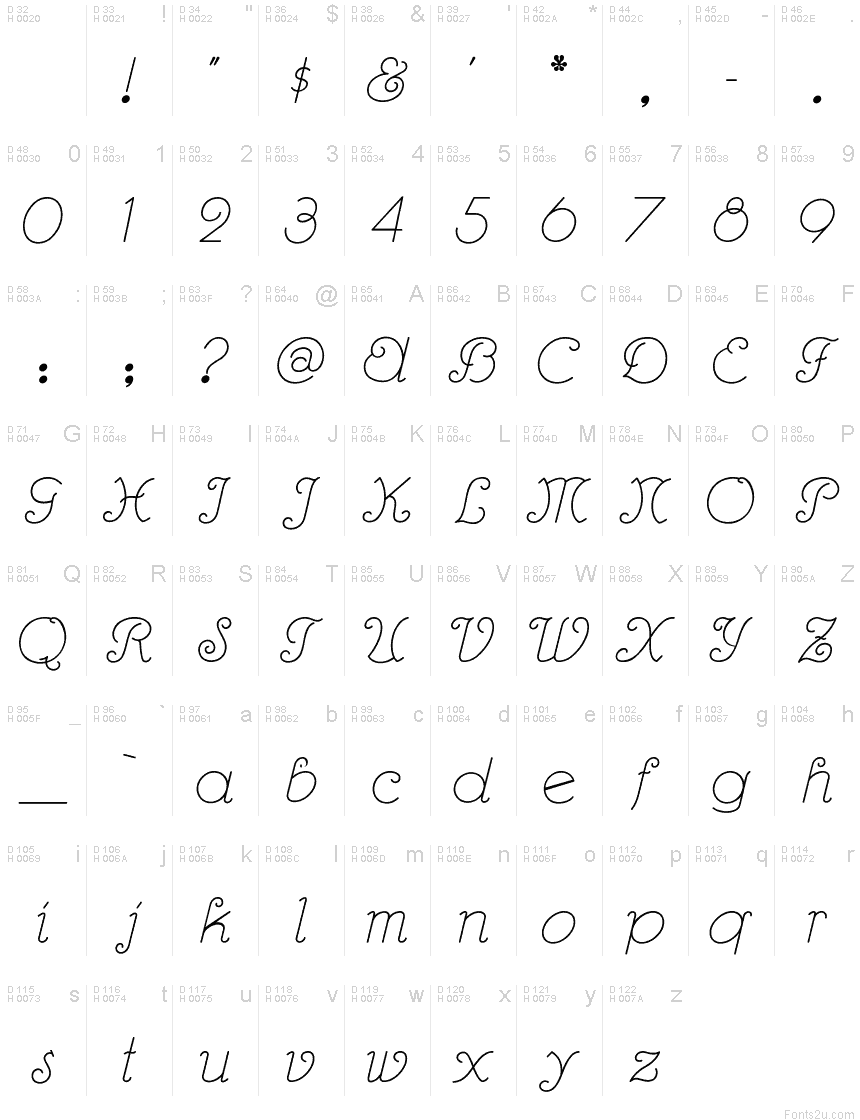
RhumbaScript
Rhumba Script by Nick Curtis is a free curly script with a light, dancing line and a distinctly retro lounge mood. The letters lean on big looping openings and tall, airy strokes, so the style feels more like hand-drawn lettering for a mid-century cocktail sign than a conventional display font.
It fits naturally in posters, album covers, cafe branding, invitation headings, and title cards where a little swing helps carry the page. As a free font, it also makes sense for short headlines, logo sketches, and monograms, because those long loops and open shapes give even a few letters enough motion to do the work.